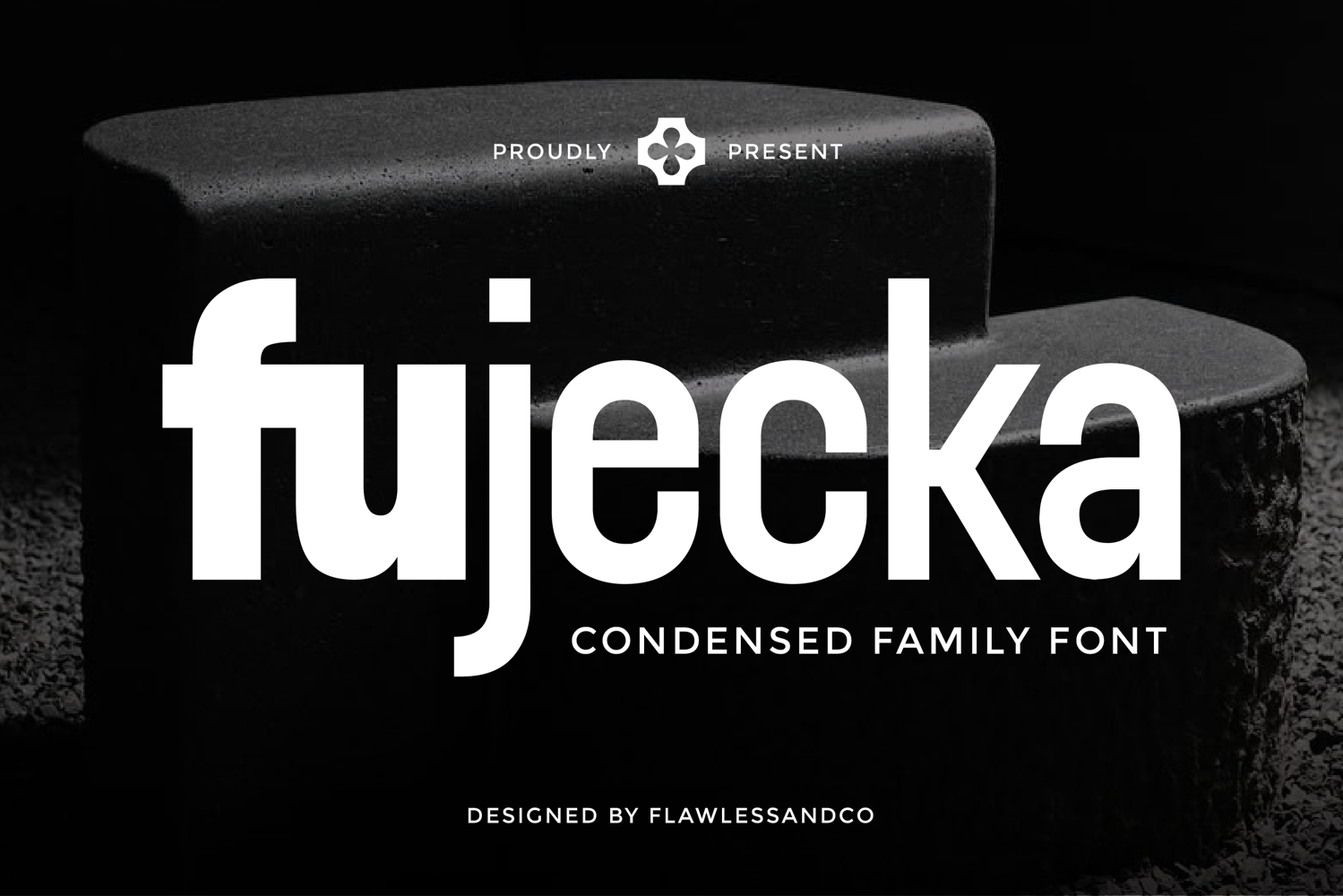
Fujecka
Fujecka - Condensed Sans Serif Family Font
Fujecka is a modern condensed sans serif family font crafted for bold communication and modern visual branding. With its narrow proportions, clean geometric construction, and balanced spacing, Fujecka delivers a sleek and powerful appearance that stands out without overwhelming the design. Its condensed structure makes it ideal for creating strong headlines and impactful layouts while maximizing available space.
Designed to be both functional and stylish, Fujecka offers excellent flexibility across a wide range of creative applications. The modern sans serif character provides a professional and confident tone, making it suitable for everything from corporate branding to editorial design. Whether used in large-scale headlines or supporting typography, Fujecka maintains clarity, consistency, and visual appeal.
Who Should Use Fujecka?
Fujecka is perfect for designers, creative studios, agencies, and businesses seeking a condensed font family with a modern and versatile personality. It’s especially suitable for projects that require strong typography, efficient space usage, and a clean contemporary look.
Suitable For:
Modern branding and visual identity
Logo and headline design
Editorial and publication layouts
Advertising and promotional campaigns
Website and digital interfaces
Technology and startup projects
Social media content
Contemporary typography systems